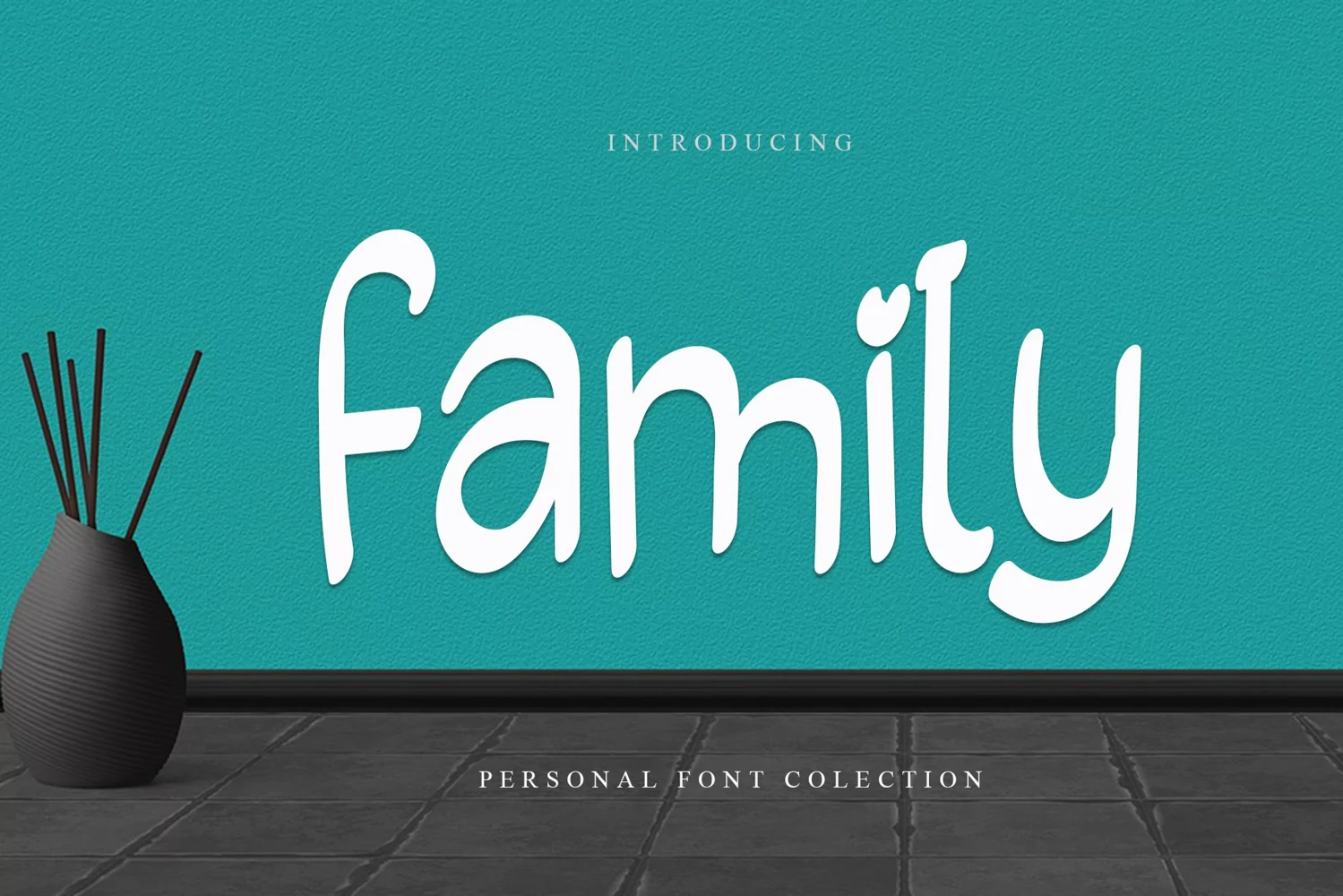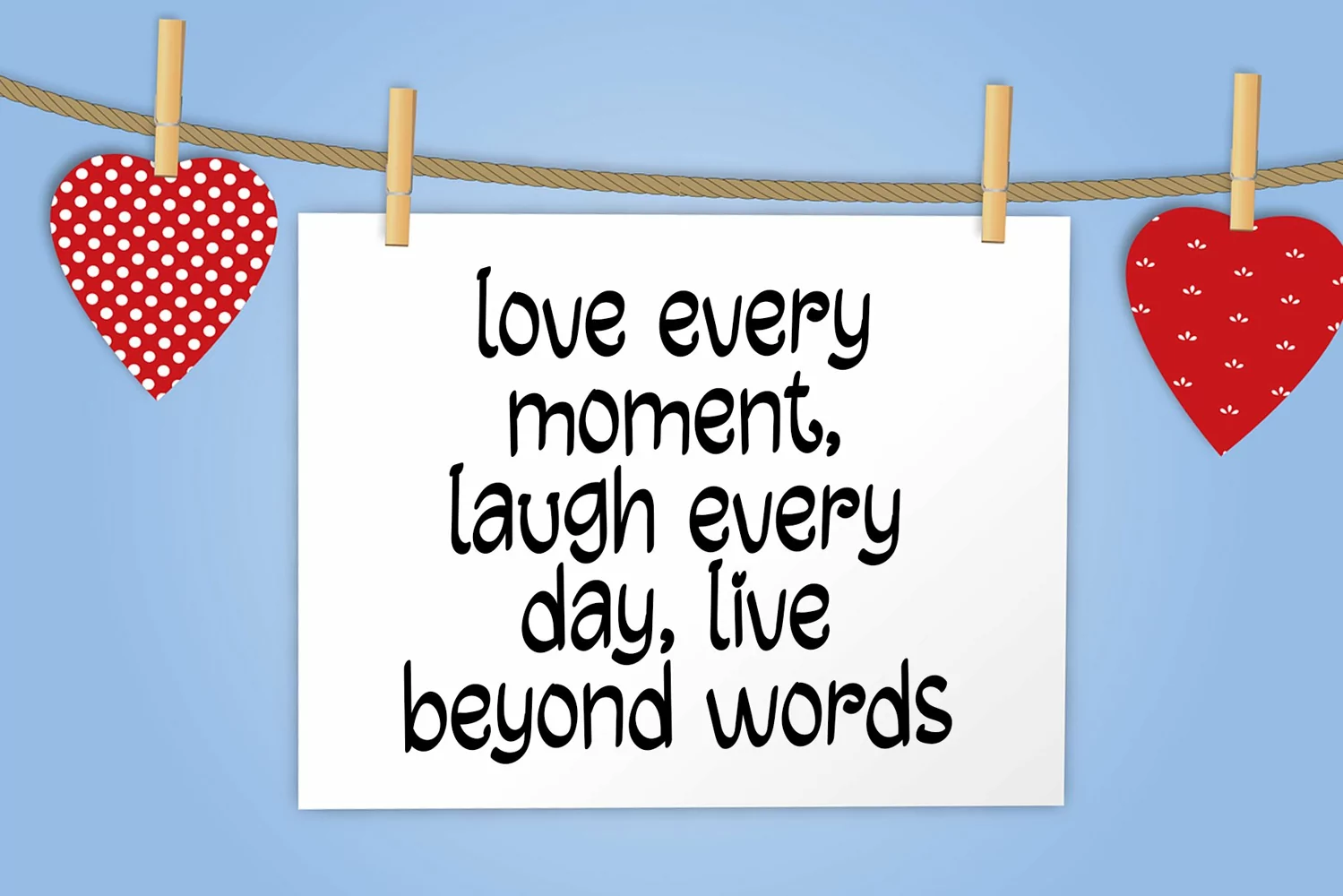
Family Reguler
Introducing, this is our newest product, we call this product Family Reguler,
It looks amazing with sweet touches and beautiful curves in each letter. Family Reguler fonts are perfect for: wedding invitations, fashion magazines, logos, signatures, photography, watermarks, wall displays, social media,